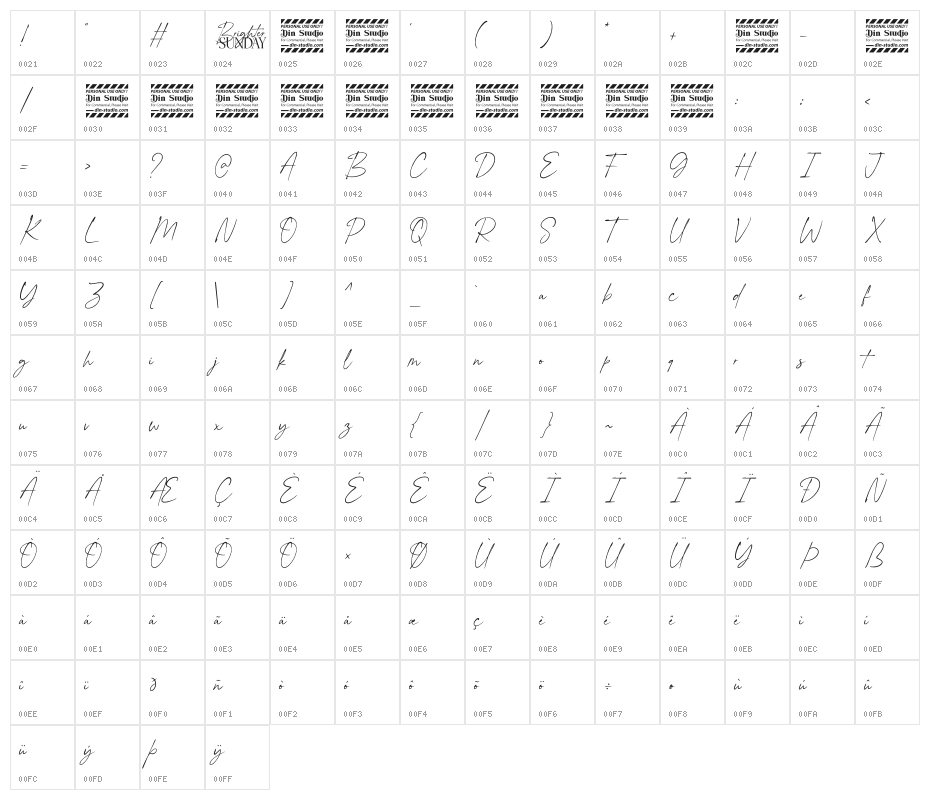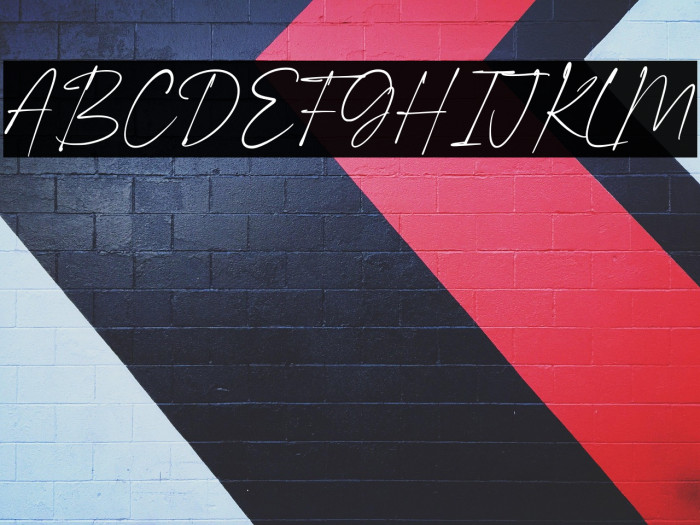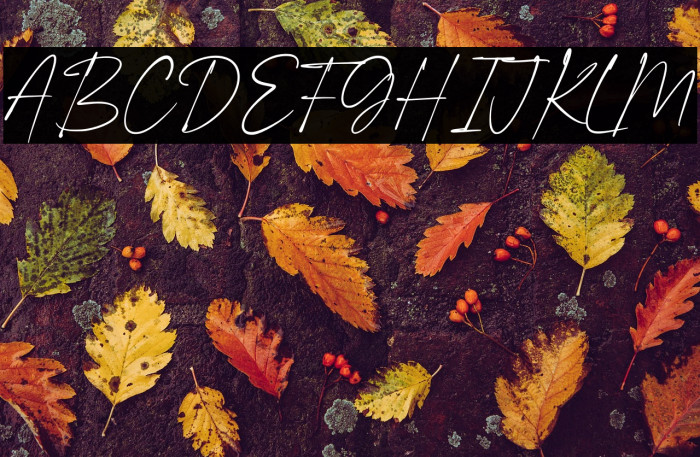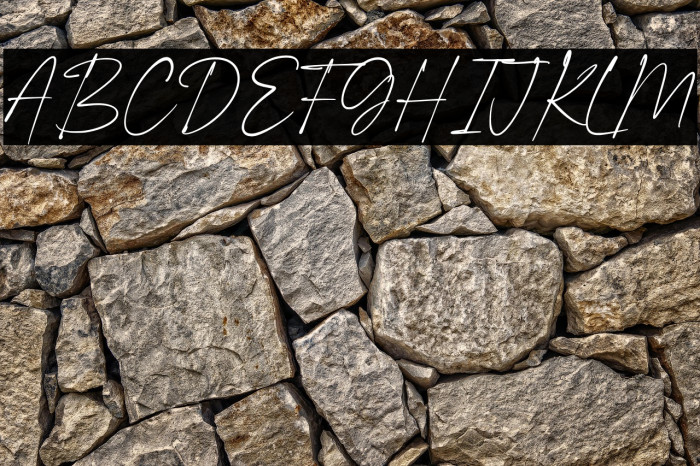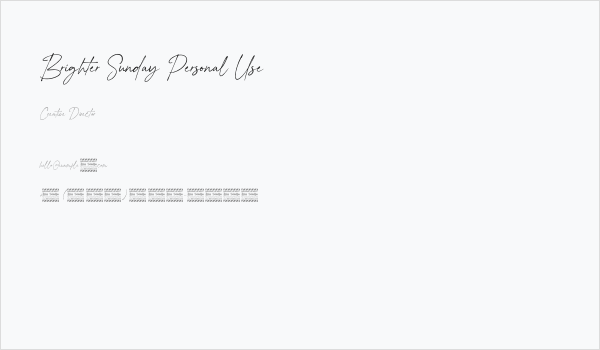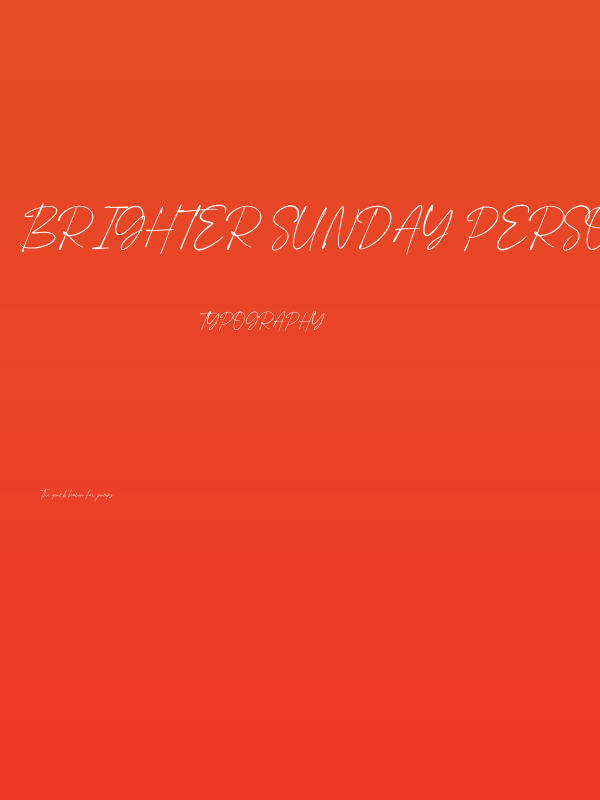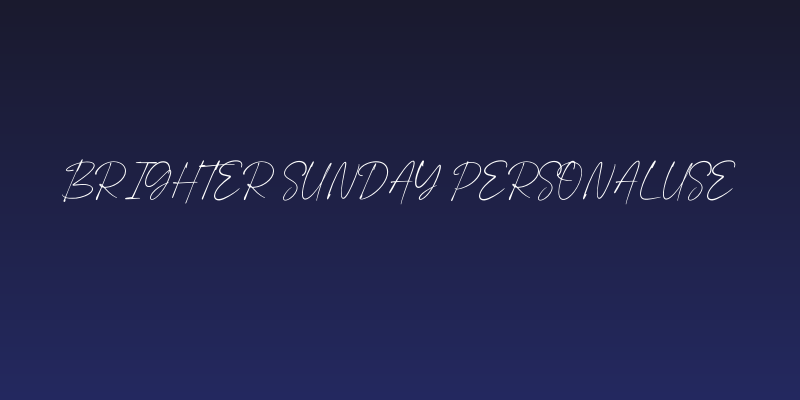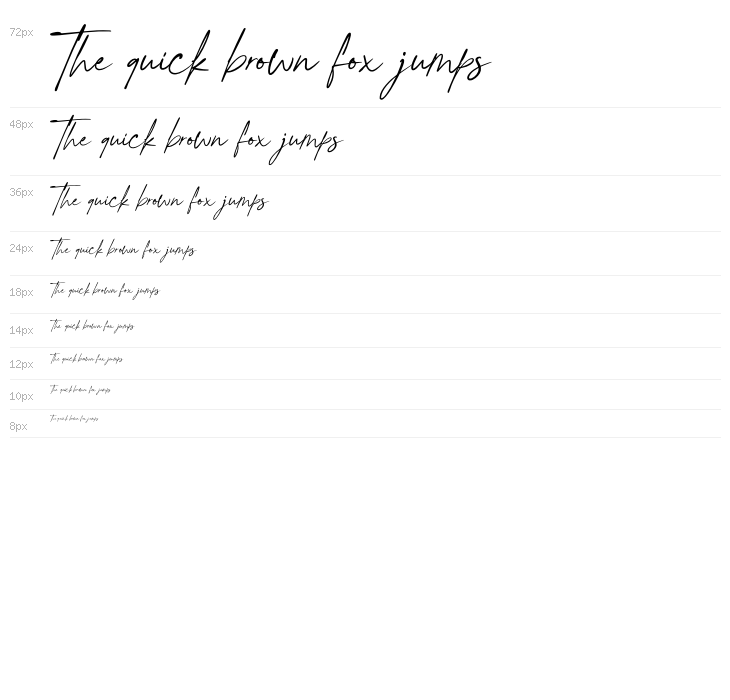
Brighter Sunday Personal Use Font
Brighter Sunday Personal Use Description
This font features an elegant, handwritten style with a flowing, cursive appearance. The letters are connected in a fluid manner, giving it a natural and personal touch. The uppercase letters are slightly larger and more pronounced, while the lowercase letters maintain a consistent flow. The numerals and special characters are designed to complement the overall script style, adding to its cohesive look. The font exudes a sense of sophistication and creativity, making it suitable for projects that require a personal or artistic flair.
| Proposed Projects | Ideal for wedding invitations, personal branding, greeting cards, and artistic projects. |